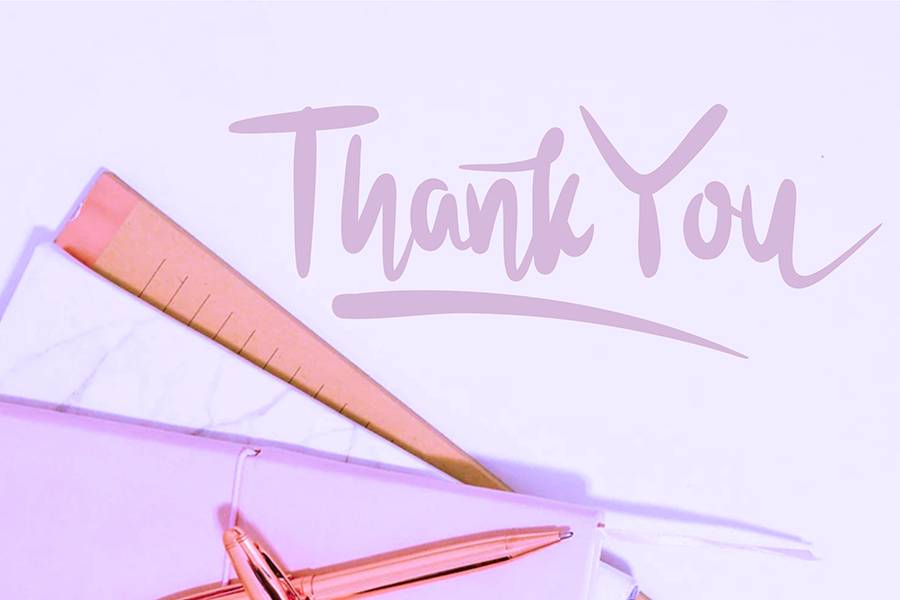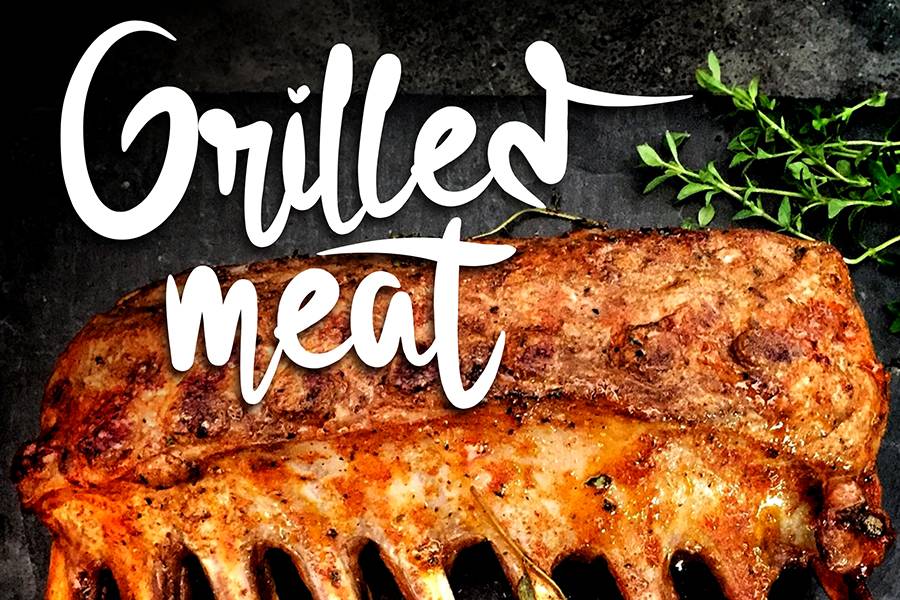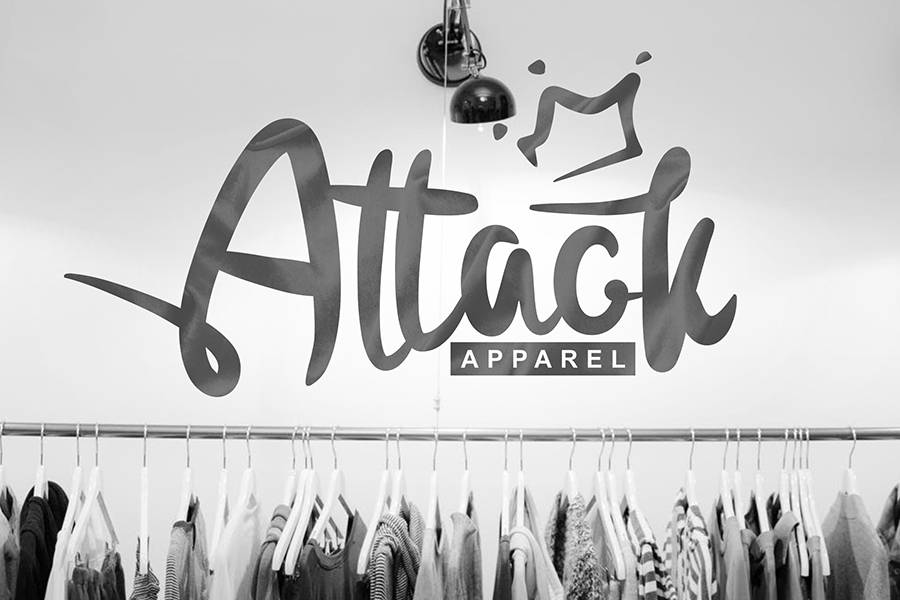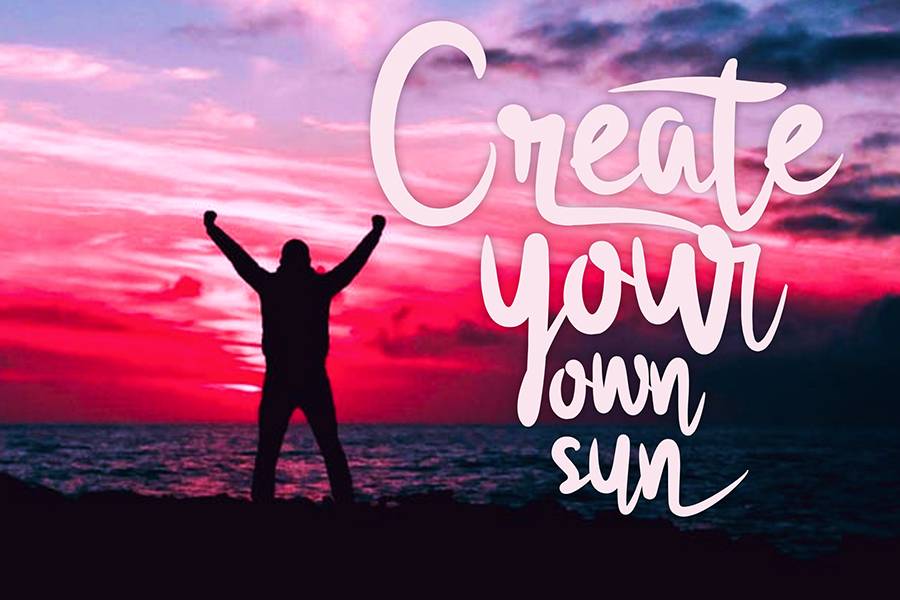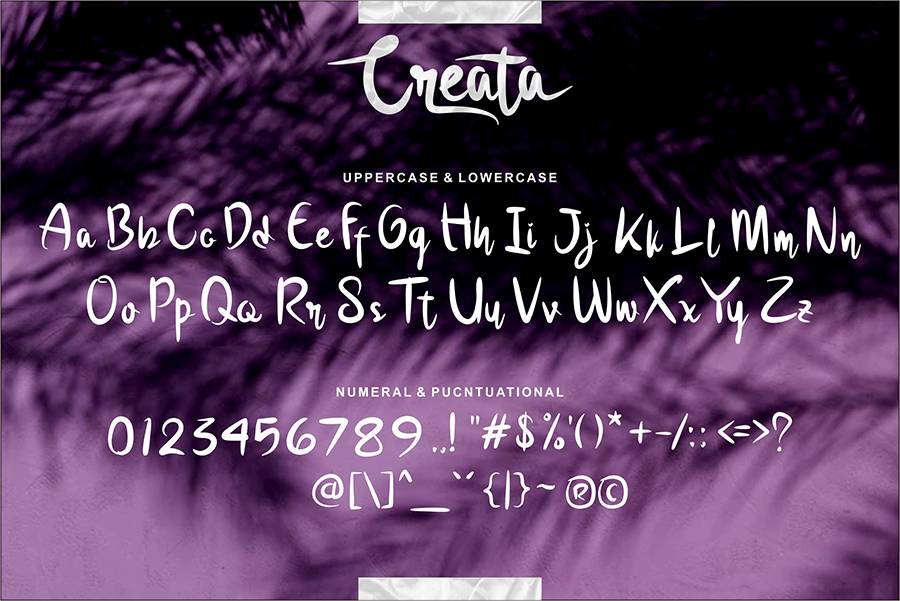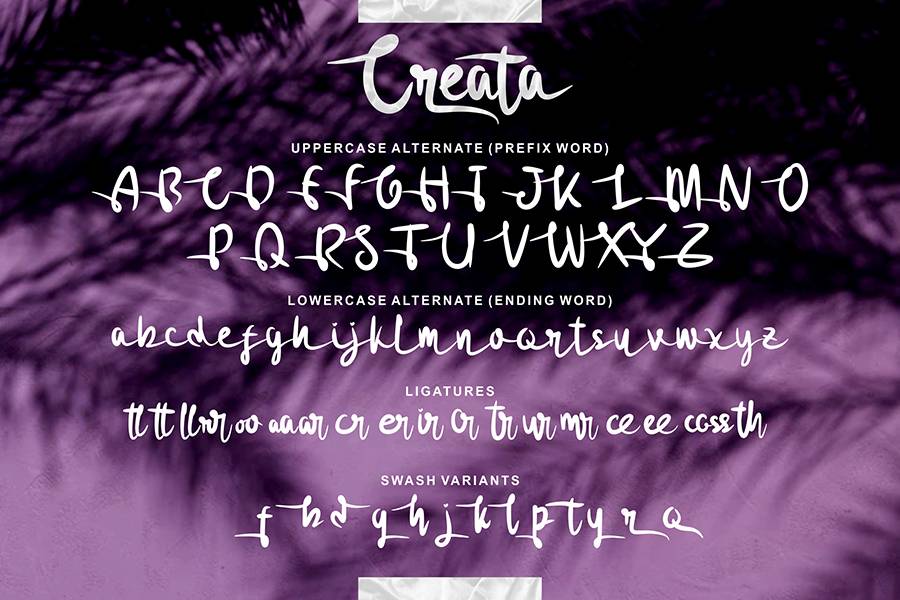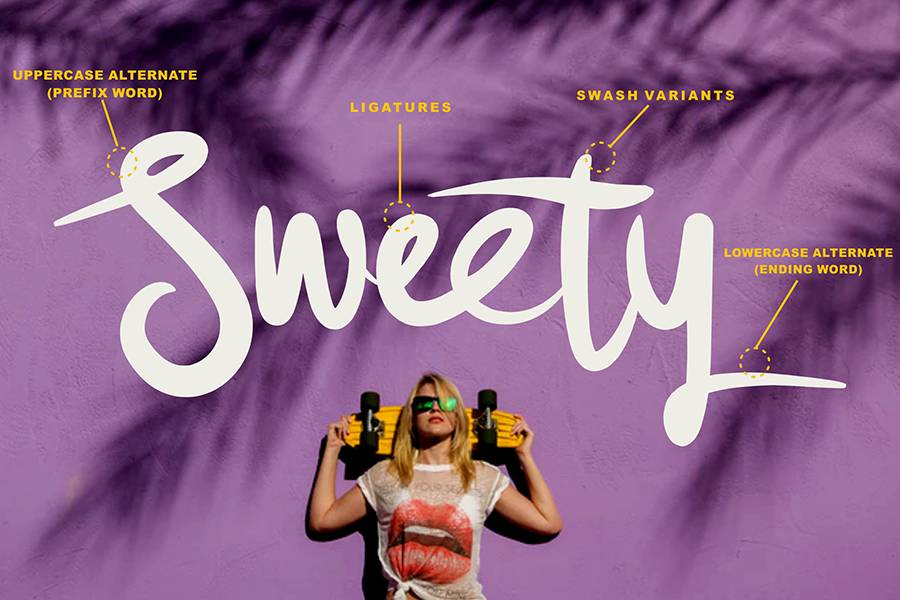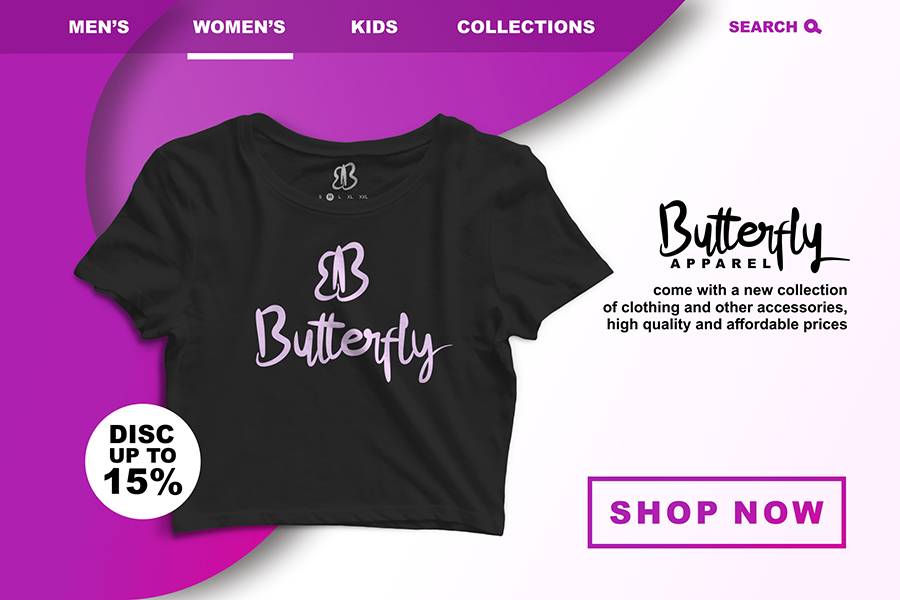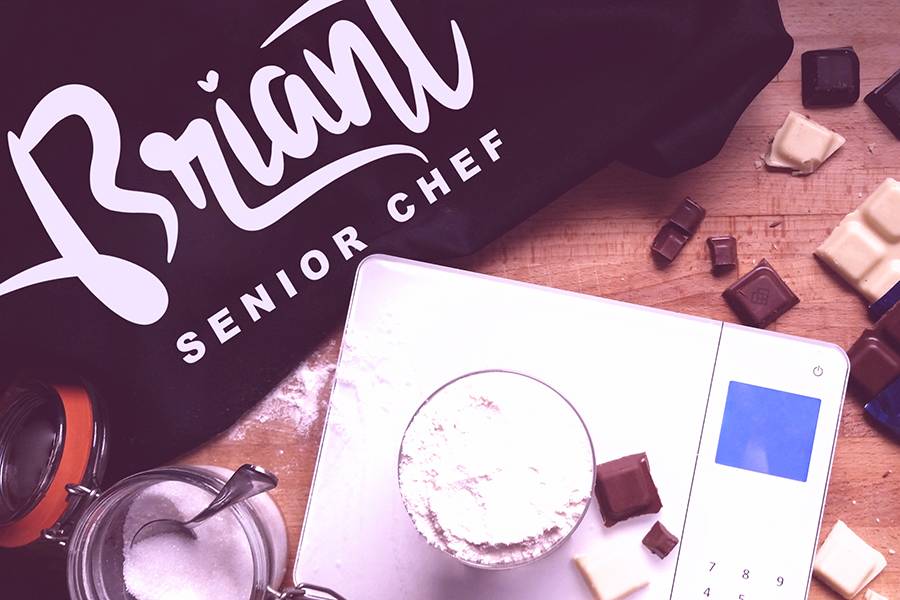
Creata Script Demo
Creata Script Demo is a bold and smooth script font with a modern feel. It will add a unique spark to any design project! As you can see, this font is working great on variety of design works. Hence, you can also use it for your own label design, branding, poster, apparel design and many more you can think of!